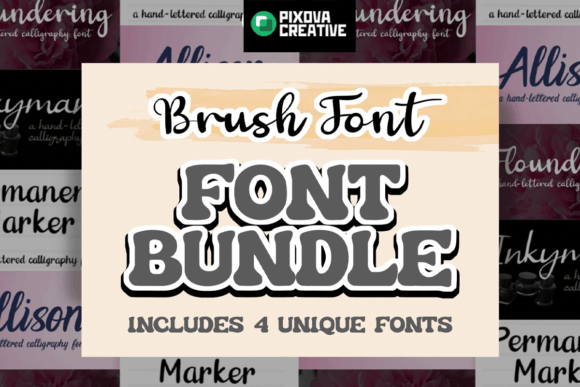
The Brush Bundle Pack Font offers a perfect balance of form and function for your design needs. Introducing the Brush font BUNDLE – 4 unique fun, hand crafted fonts for your creative projects. Easily installed in a few clicks!
This playful, hand-crafted font pack excels in headlines, short text blocks, logos, and social media graphics. Its informal, expressive nature makes it ideal for branding projects targeting a younger demographic or those needing a friendly, approachable feel. Avoid using it for body text or lengthy paragraphs; its organic nature can hinder readability in large quantities.
Brush Bundle works particularly well paired with clean sans-serif fonts like Montserrat or Open Sans for a balanced contrast. For a more sophisticated look, consider pairing with a classic serif like Garamond or a more modern geometric sans-serif like Futura. Avoid pairing with overly decorative or script fonts, which might create visual clutter.
The overall personality is best described as fun, friendly, and slightly whimsical. It’s perfect for projects needing a handmade, authentic touch – think craft businesses, children’s products, or invitations with a casual, celebratory tone.